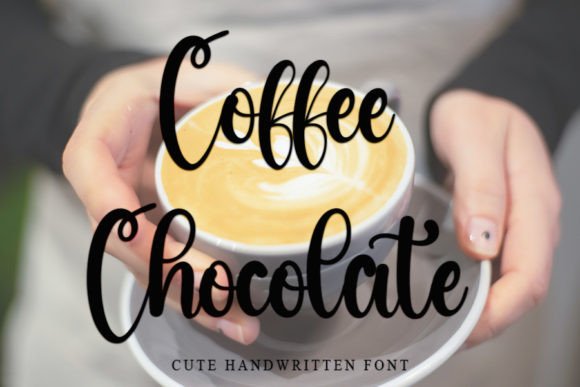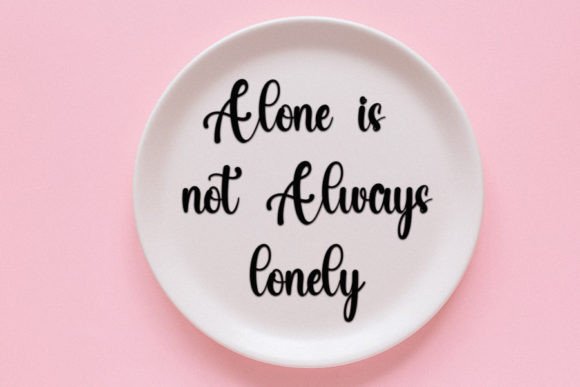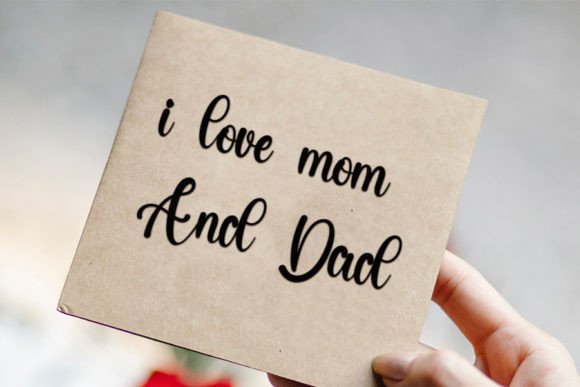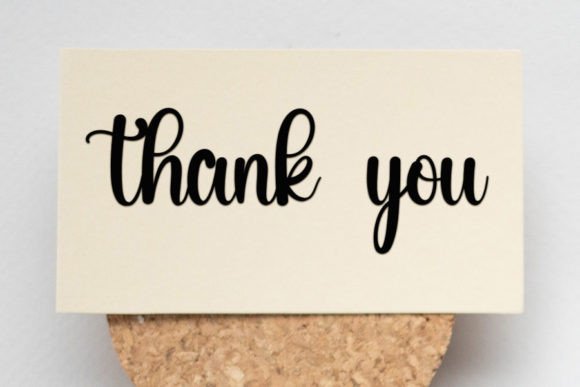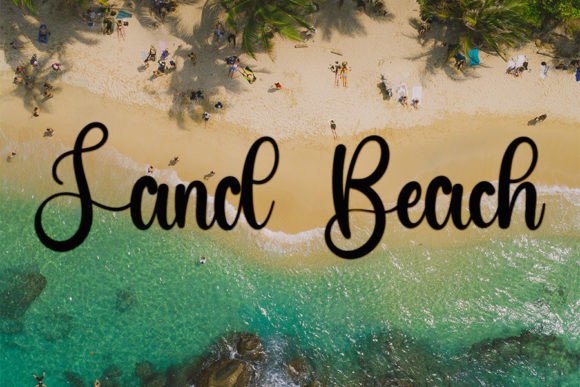
Coffee Chocolate Font
Coffee Chocolate, a neat and beautiful handwritten font, stands out with its elegant touch, making it perfect for a variety of creative projects. With its distinct and timeless style, Coffee Chocolate adds a touch of sophistication to your designs, making them truly spectacular.
The charm of Coffee Chocolate lies in its neat and carefully crafted design, which carries an air of elegance. The handwritten touch adds a personal and unique element to your typography, making it suitable for a range of applications across different design contexts.
Consider incorporating Coffee Chocolate into your favorite projects where a balance of neatness and elegance is desired. Whether you’re working on branding, product packaging, invitations, or any creative endeavor, Coffee Chocolate becomes a valuable asset, enhancing the overall aesthetic with its distinctive style.
The adaptability of Coffee Chocolate extends to both digital and print materials, making it a versatile choice for various design applications. Whether it’s gracing the pages of a website, adding flair to social media graphics, or embellishing printed materials, Coffee Chocolate brings a touch of timeless beauty.
In essence, Coffee Chocolate is more than just a font; it’s a design element that combines neatness and elegance to elevate your projects. Fall in love with its carefully crafted style, and let Coffee Chocolate be the choice that adds a touch of sophistication to your spectacular designs. Embrace the distinctiveness of Coffee Chocolate and create visuals that stand out with timeless beauty.